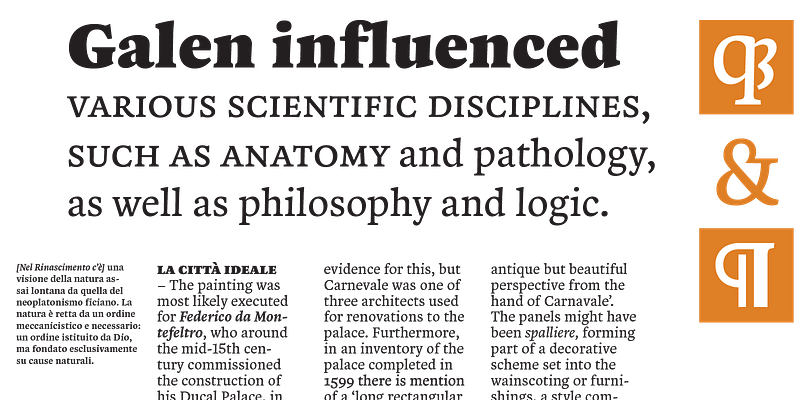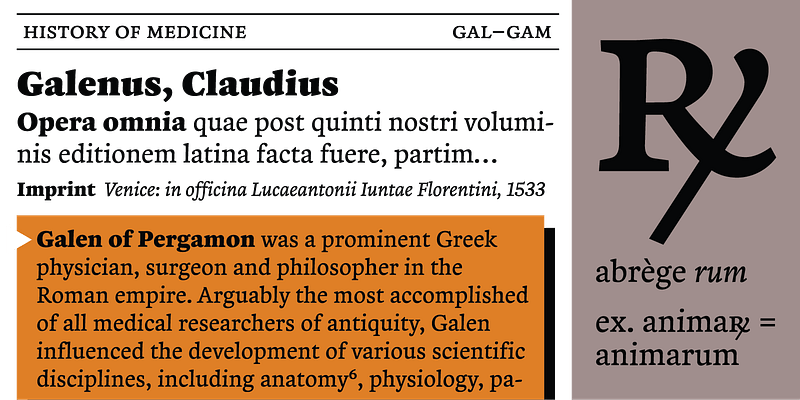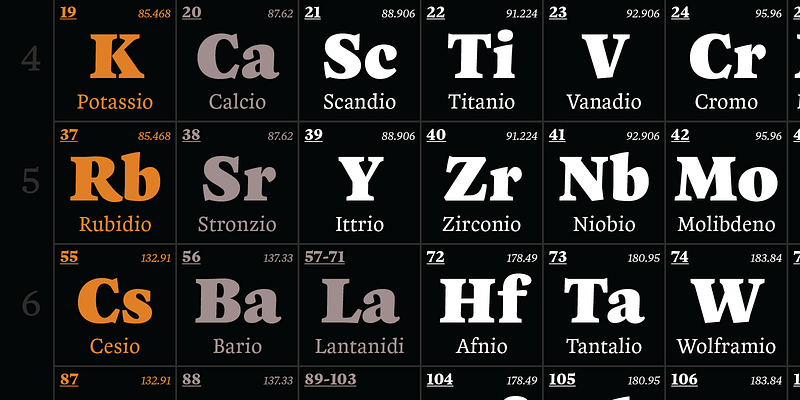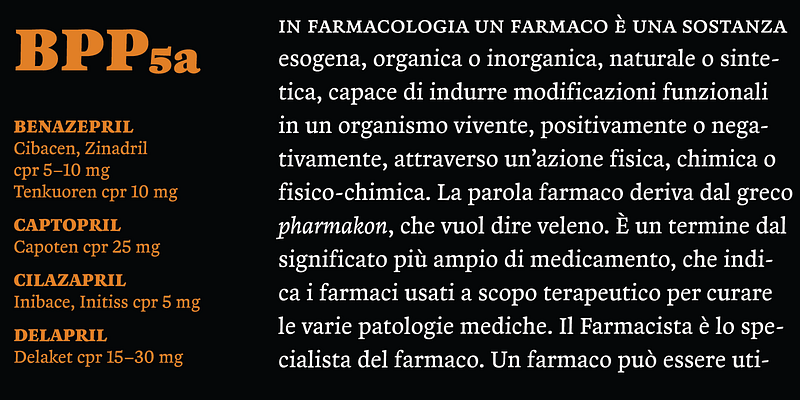
Zenon is a book typeface in four weights with a wide range of applications. It is a contemporary roman developed from analysis of Renaissance types models. It is Arzachel’s perfect companion.